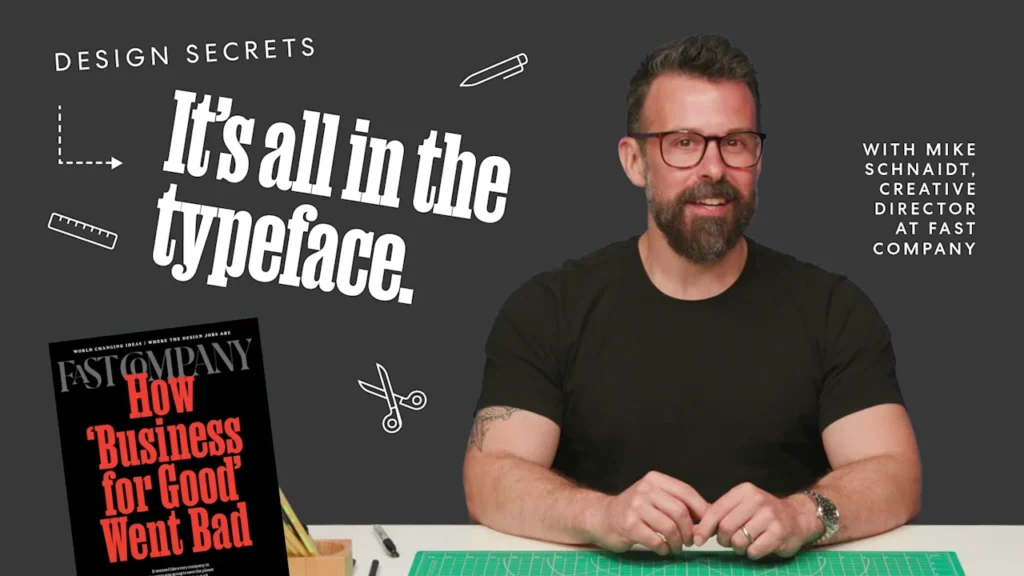
Fast Company’s creative director, Mike Schnaidt, breaks down the Manuka Slab typeface and explains why it was chosen for the summer issue of the print magazine. If you’re looking for a bold serif with personality, Manuka Slab might be just the font you need.